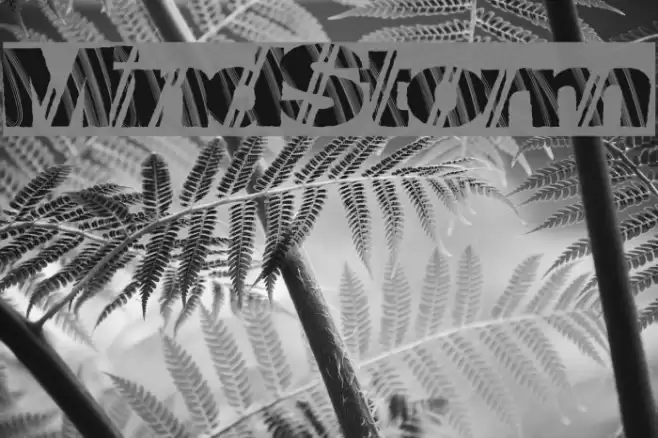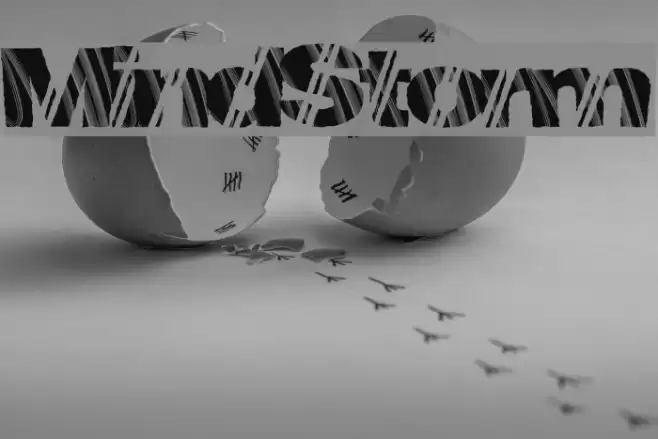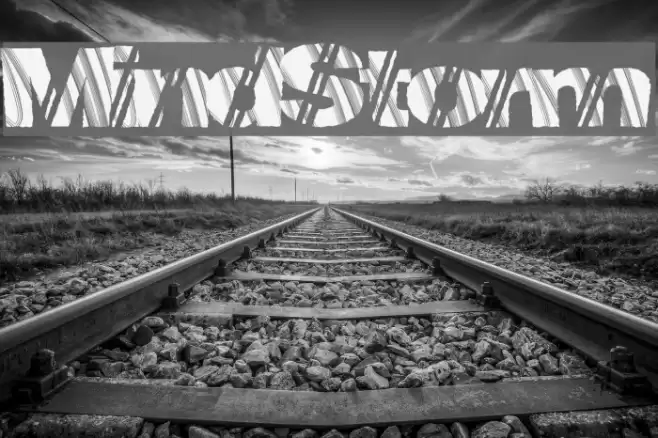
MindStorm Font
MindStorm Description
This font features a bold and dynamic design with a unique pattern of diagonal lines cutting through each character, creating a sense of movement and energy. The uppercase and lowercase letters maintain a consistent style, with sharp edges and a modern aesthetic. The numbers and special characters follow the same design principles, ensuring a cohesive look across all elements. The font's distinctive appearance makes it ideal for eye-catching designs that require a strong visual impact.
A bold, dynamic font with diagonal line patterns for a modern, energetic look from Distorted Eroded fonts.